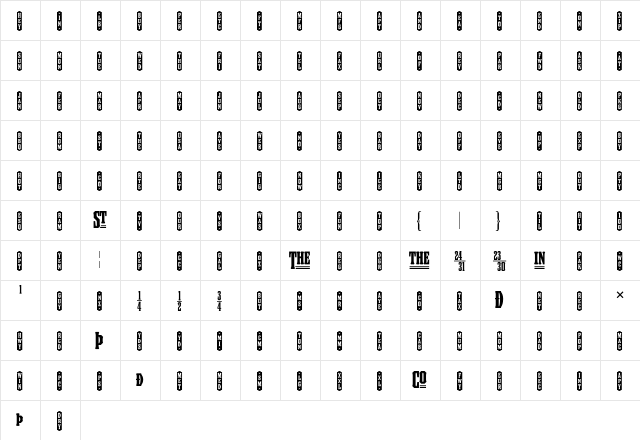
Council WordLogosOne
Design Context for Council Typeface
Council offers clean, dependable letterforms without strong stylistic allegiance, making it a practical choice for designers who need flexibility.